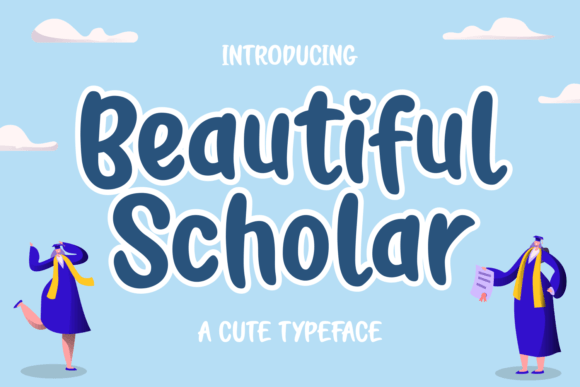
Behold, the Beautiful Scholar Font; a display typeface seeped in allure, ready to enchant your designs with its charismatic presence. This sweet and bold font, crafted by Creative Fabrica Fonts, is a visual masterpiece that breathes life into your creative vision.
With its captivating curves and playful charm, the Beautiful Scholar Font adds a touch of whimsy and sophistication to any project. Imagine your designs adorned with this elegant font, drawing the eyes of all who behold it.
Unleash your imagination and let the Beautiful Scholar Font guide you towards striking cover titles, captivating posters, engaging websites, dynamic banners, eye-catching fabric prints. The possibilities are endless, limited only by the boundaries of your creativity.
Elevate your designs to new heights with the Beautiful Scholar Font. Its versatility knows no bounds, making it the perfect companion for a myriad of projects. From playful to professional, this font effortlessly adapts to your vision, ensuring your message is conveyed with both flair and impact.